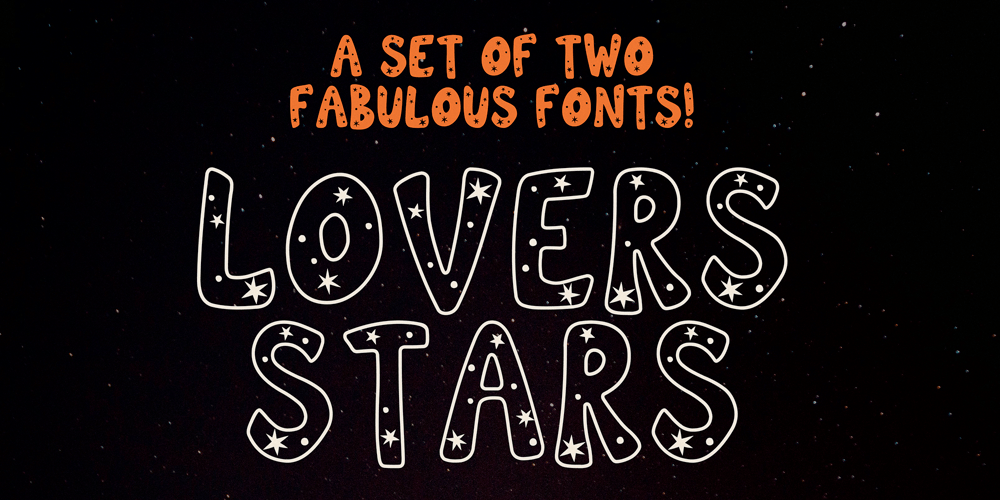
Lovers Stars Font Family was designed by Anastasia Kuznetsova and published by Anastasia Kuznetsova. Lovers Stars contains 2 styles and family package options. Say Hello to Lovers Stars!! My new a set of two fabulous fonts – Lovers Stars!! Lovers Stars is a set of two amazing fonts!! This font is made from my original font – Lovers Clouds.This font is perfect for all your designs, lettering, drawings, signage, stickers, retro designs, shirts and more!Font Features: A-Z; a-z character set; 1 language (English); numbers and punctuation marks, symbols. Fonts can be opened and used in any software that can read standard fonts, even in MS Word. No special software is required to get started.It is recommended to use it in Adobe Illustrator or Adobe Photoshop.Made with love and magic ♡Thank you for reading it, and do not hesitate to send me a message if you have any questions!~ Anastasia